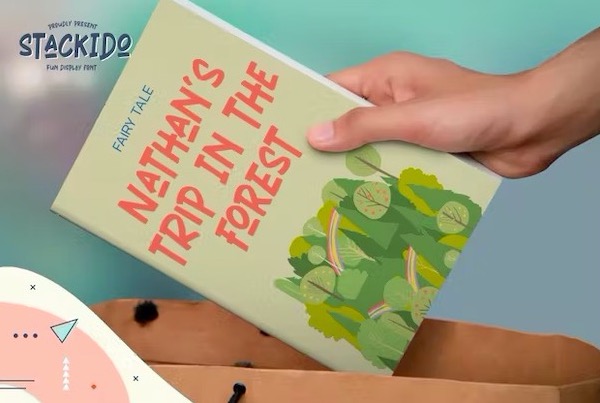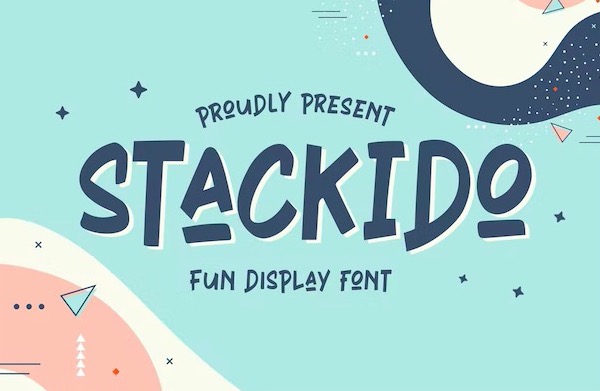
Introducing Stackido Font. This is a cheerful & playful display font that will make your favorite projects look fun, unique, and modern. It’s very stunning for labels, quotes, posters, DIY projects, branding, packaging, greeting cards, websites, photography overlays, signs, window art, scrapbooking, tags, and more!
Stackido Display Font